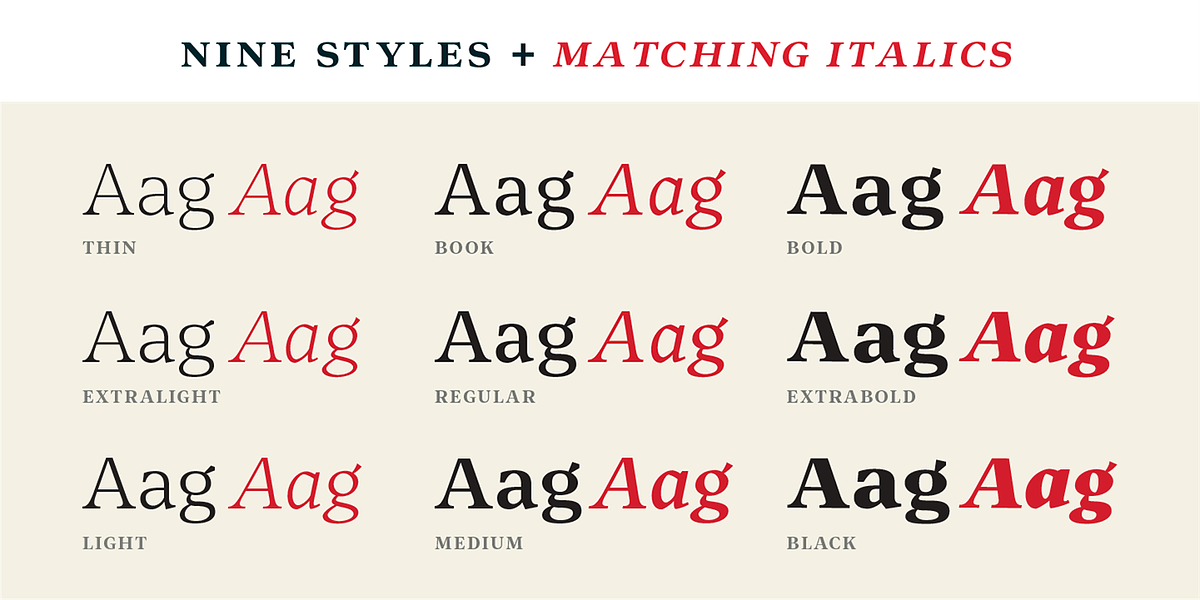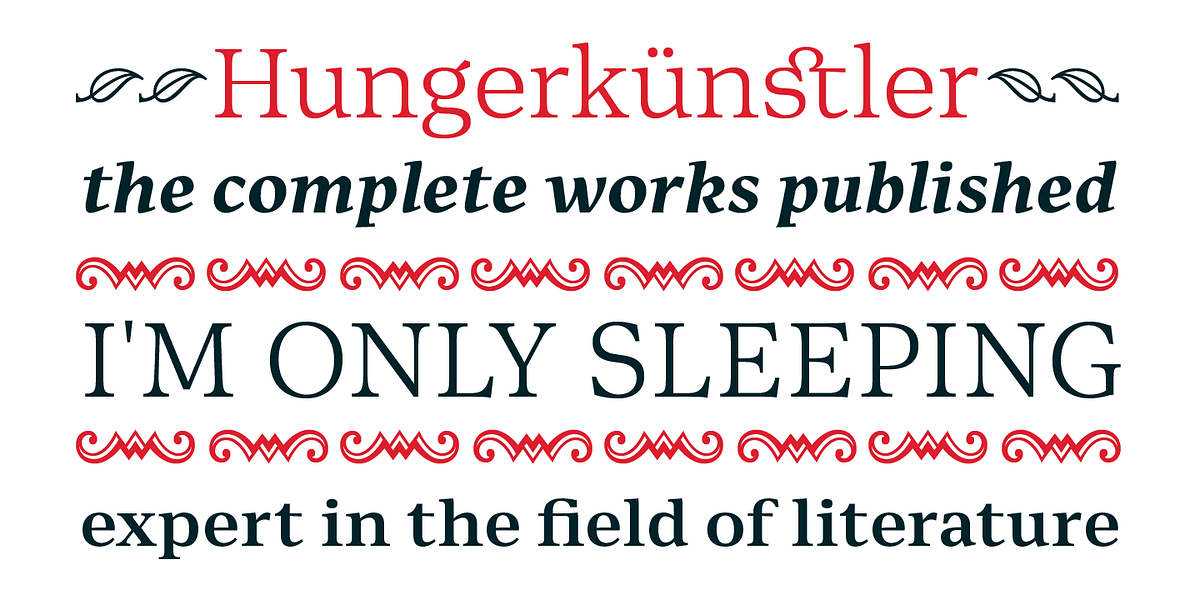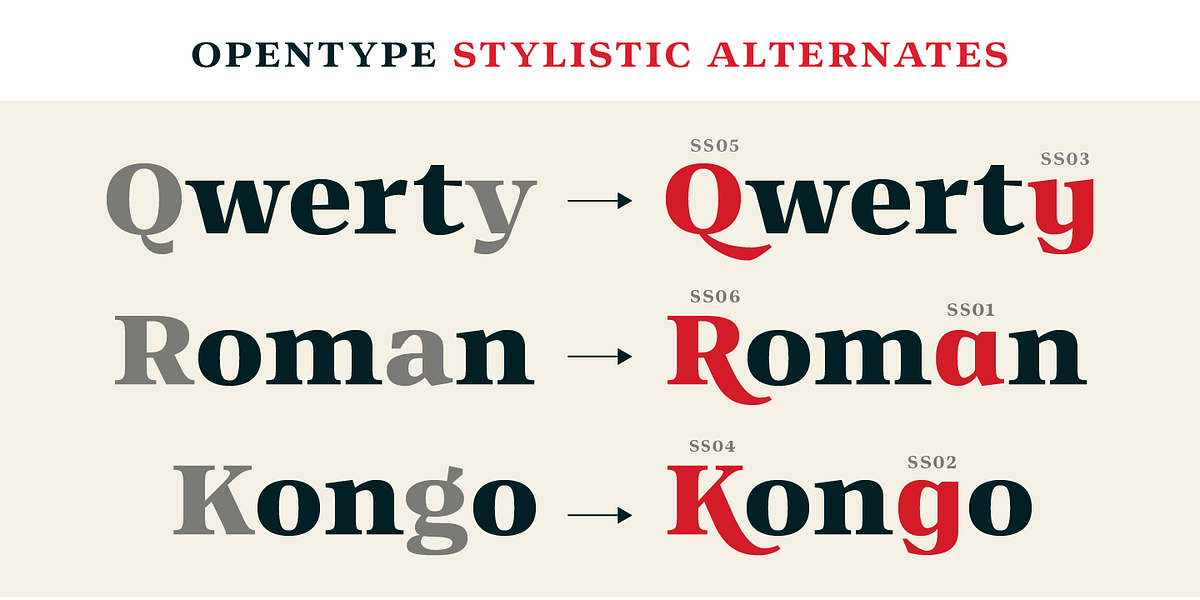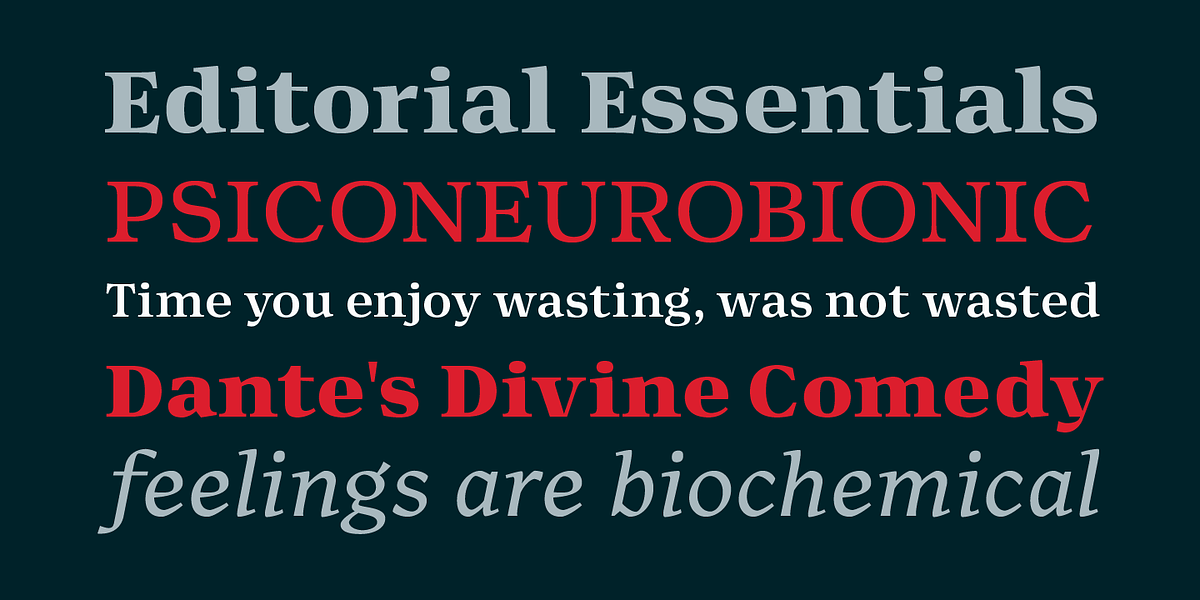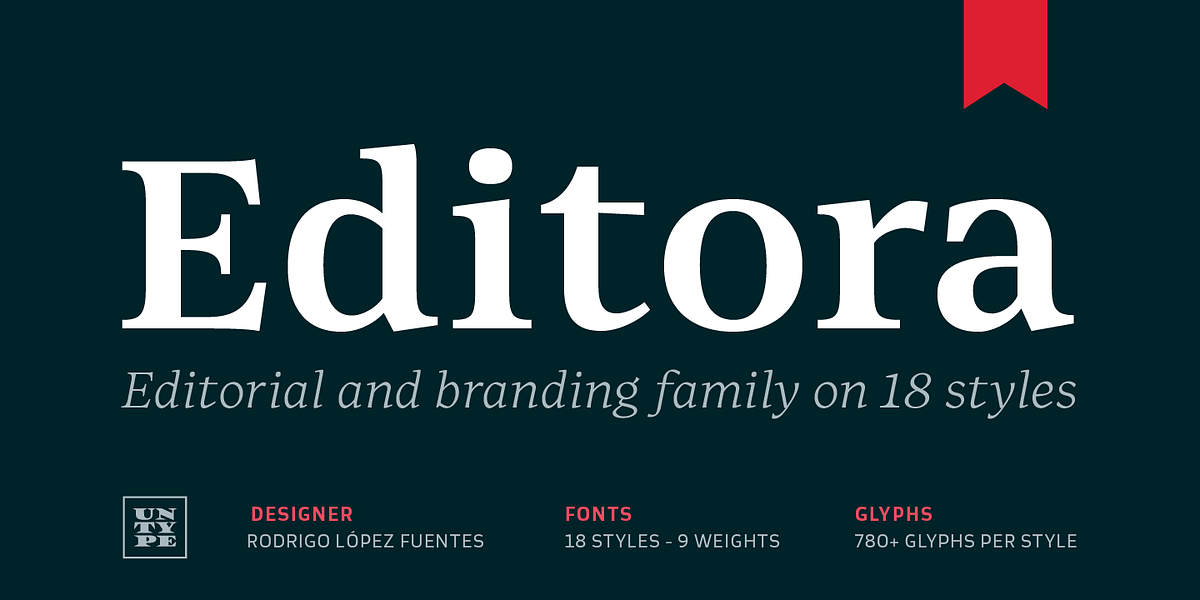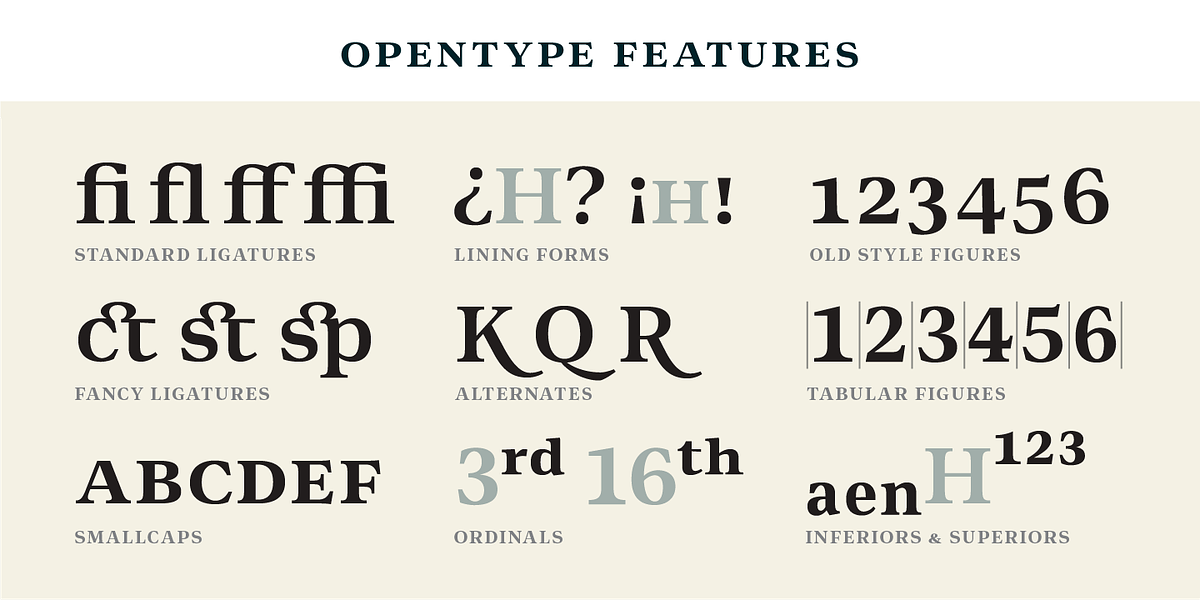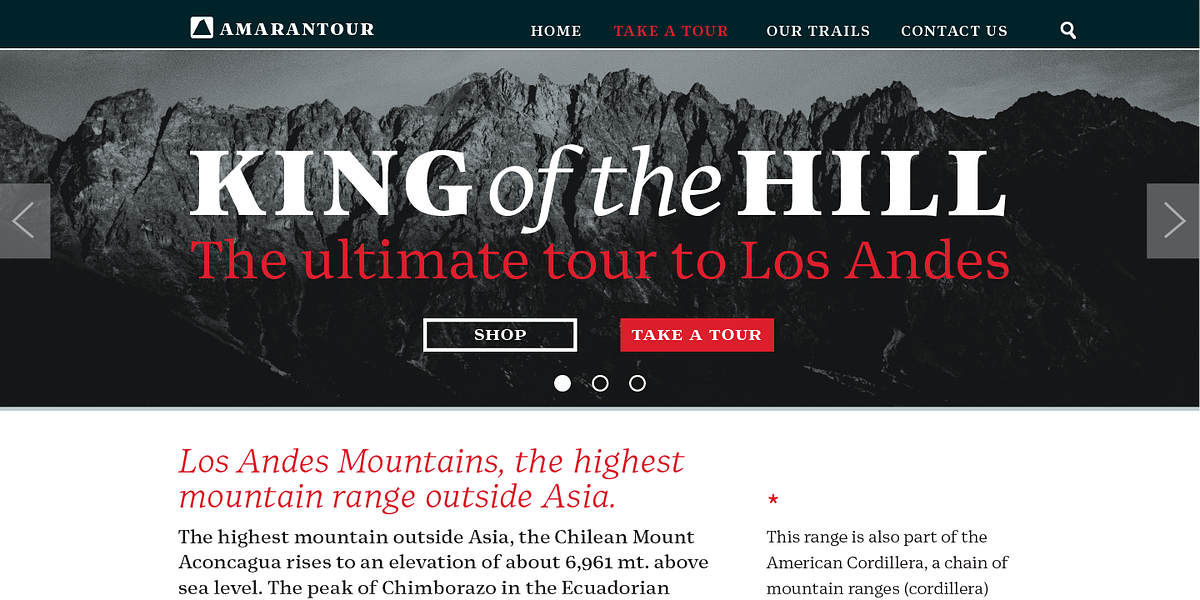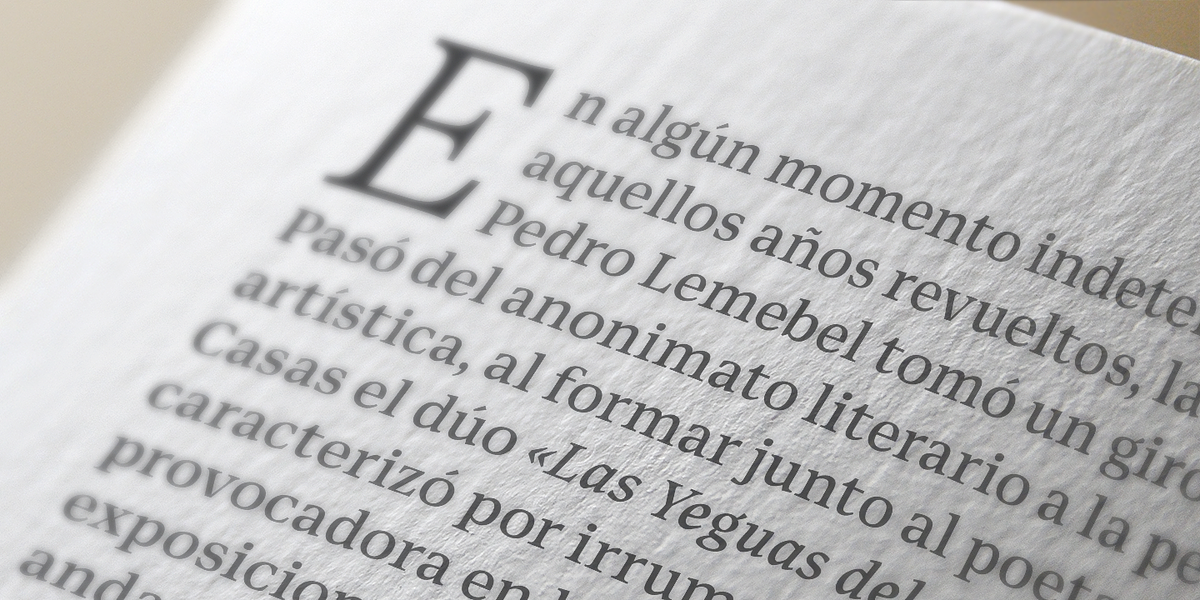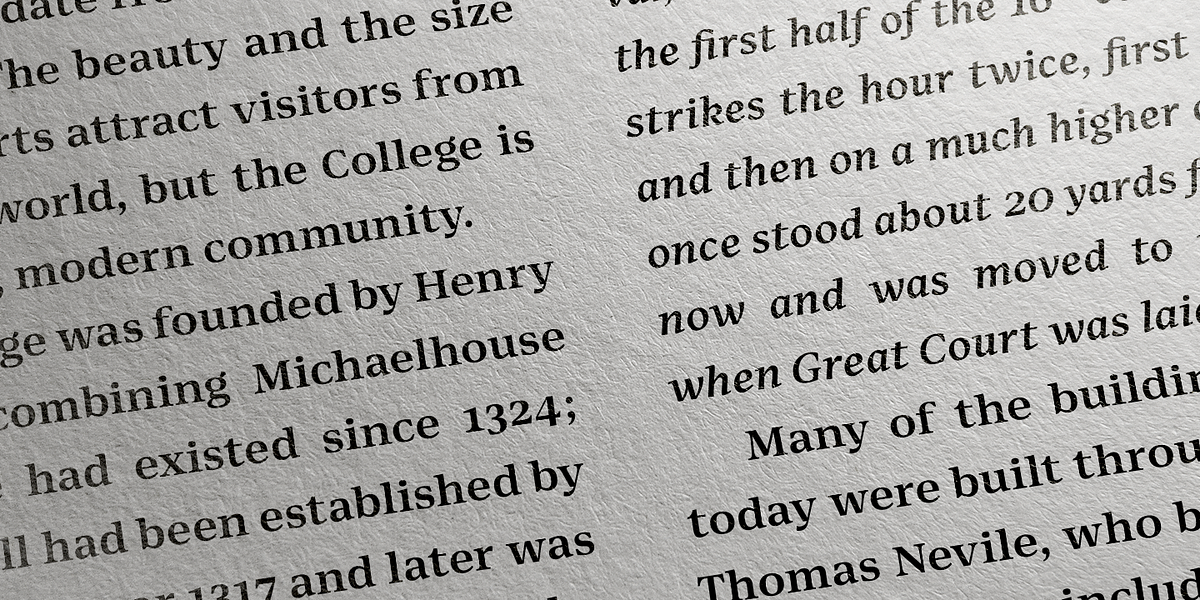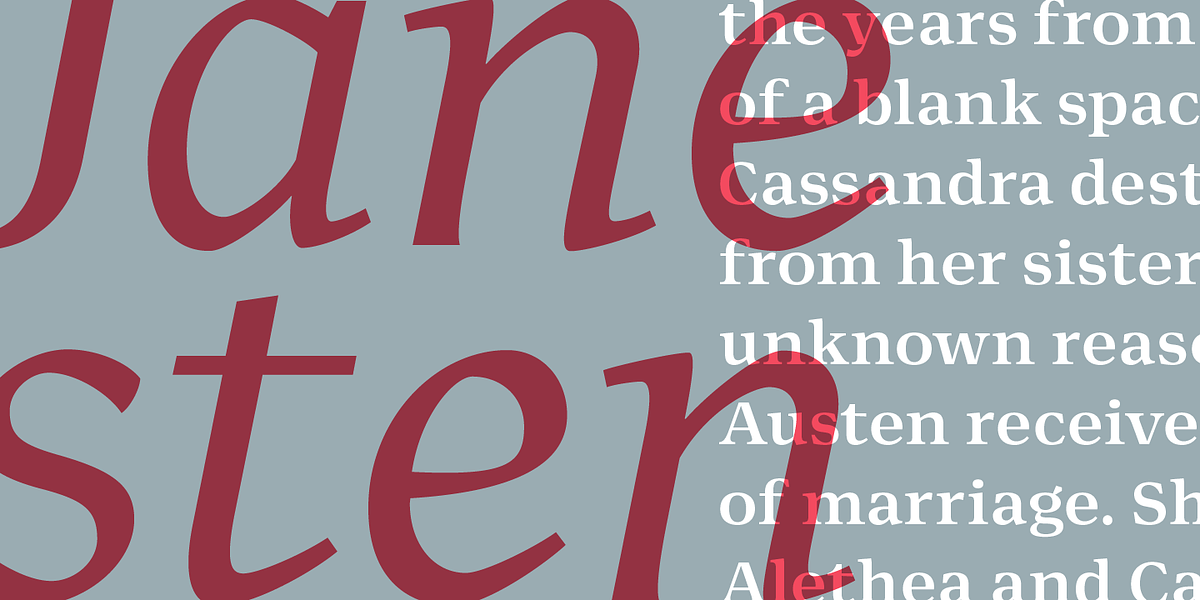
Editora
Editora is a neoclassical serif typeface designed for editorial use. It offers 18 styles encompassing nine weights with matching italics. This versatility allows it to be used for both extended reading in its medium weights and striking headlines and subtitles in bolder variants. The inclusion of OpenType features like stylistic alternates, ligatures, small caps, old-style and tabular numerals, alongside borders and ornaments, further enhances its suitability for refined editorial design.